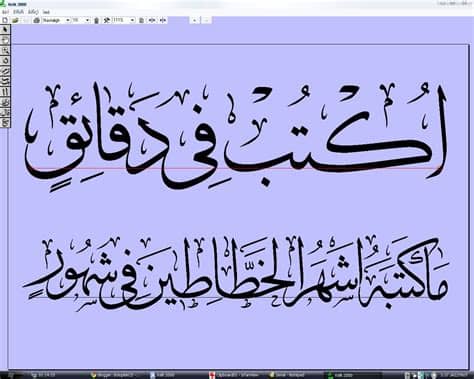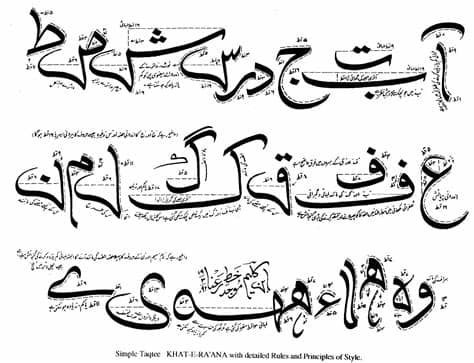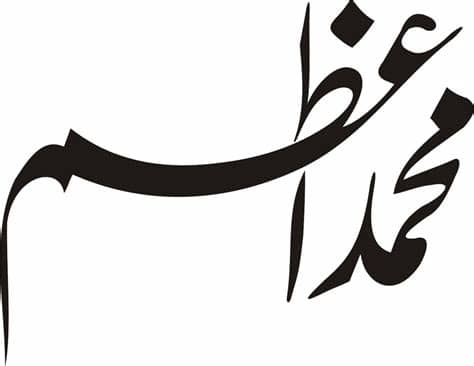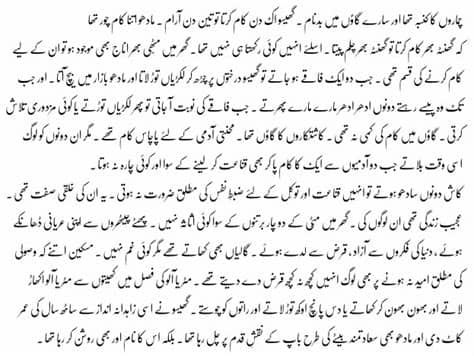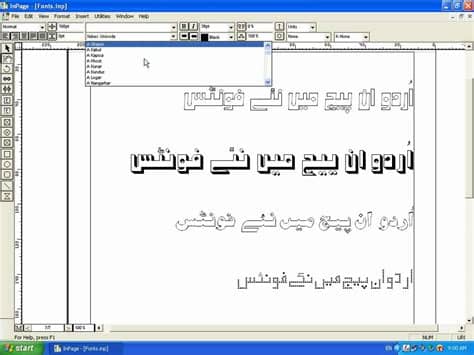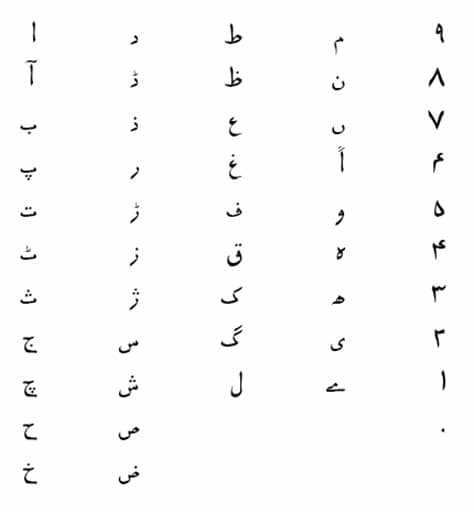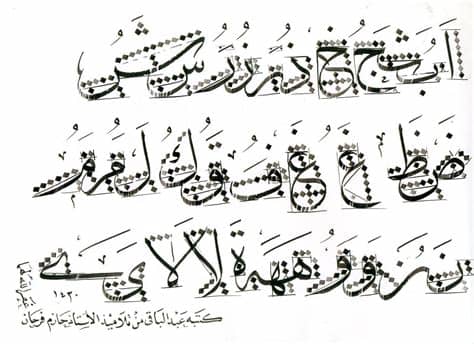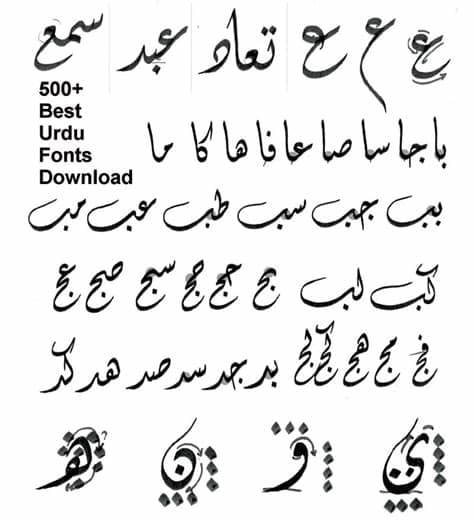
Licensed for personal and commercial use. Writing fonts include both printing and cursive styles and is less artistic than formal calligraphy. Basics of urdu handwriting with faountain pen. Contact urdu fonts free download on messenger. Craft a personalized note with one of these. Make your text decorative with beautiful handwriting hindi fonts. Browse by alphabetical listing, by style, by author or by popularity. Handwriting fonts are written with a pen, pencil, or marker. This handwriting font is available in two styles: Actually, the least thing you think of when you want to. Within that broad category you'll find a range of styles that reflects the variations. Download 10,000 fonts with one click for $19.95. #handwritten #cartoon #cursive #eroded #decorative #handwriting #elegant #halloween #logo #hand drawn #retro.
Craft a personalized note with one of these. Typographic info for the urdu typesetting font family. See more of urdu fonts free download on facebook. Ameliya script font is a hand calligraphy font, it's interesting because it has a soft, clean, feminine bridgeth is a handwritten script font, with an elegant and beautiful look. Archive of freely downloadable fonts. The best selection of handwriting fonts for windows and macintosh. Basics of urdu handwriting with faountain pen. #handwritten #cartoon #cursive #eroded #decorative #handwriting #elegant #halloween #logo #hand drawn #retro.
Get free urdu fonts like urdu naskh font preview.
Within that broad category you'll find a range of styles that reflects the variations. Handwriting fonts are written with a pen, pencil, or marker. It looks stunning on wedding. To make your system read and write urdu scripts in variety of fonts including naskh, nastaleeq and other fancy calligraphic flavors without much trouble. Get free urdu fonts like urdu naskh font preview. Licensed for personal and commercial use. Urdu handwriting and arabic khushkhati. Actually, the least thing you think of when you want to. You can use these fonts to create custom styles. We have 3,746 free handwritten\ fonts to offer for direct downloading · 1001 fonts is your favorite site for free fonts since 2001. Craft a personalized note with one of these. Browse by alphabetical listing, by style, by author or by popularity. Download 10,000 fonts with one click for $19.95.
Handwriting fonts bring a new artistry to fonts, as they are actually based on people's individual handwriting. Actually, the least thing you think of when you want to. Writing fonts include both printing and cursive styles and is less artistic than formal calligraphy. This handwriting font is available in two styles: Google fonts now supports variable fonts.
Here are 50 free handwriting fonts you can incorporate into your designs to give them a unique every one of the free handwriting fonts on this list is available for download at zero cost to you—so if. Ameliya script font is a hand calligraphy font, it's interesting because it has a soft, clean, feminine bridgeth is a handwritten script font, with an elegant and beautiful look. May i please request for urdu fonts in your collection such as 'jamil noori nastaliq' or others. The best selection of handwriting fonts for windows and macintosh. Download and install free handwritten fonts of the best quality from free fonts and use on your own personal and business related design purposes. Urdu handwriting and arabic khushkhati. Download 10,000 fonts with one click for $19.95. Total in section 693 of the fonts available to free this page lists the handwritten fonts, which you can download absolutely free of charge and without.
This handwriting font is available in two styles: Get free urdu fonts like urdu naskh font preview. You can use these fonts to create custom styles. Browse a unique collection of the best handwritten fonts and thousands of free typefaces to download. Typographic info for the urdu typesetting font family. Here are 50 free handwriting fonts you can incorporate into your designs to give them a unique every one of the free handwriting fonts on this list is available for download at zero cost to you—so if. See more of urdu fonts free download on facebook. It looks stunning on wedding. Handwriting fonts are written with a pen, pencil, or marker. Handwriting fonts bring a new artistry to fonts, as they are actually based on people's individual handwriting. @zeni241 thanks for you suggestion. We have 3,746 free handwritten\ fonts to offer for direct downloading · 1001 fonts is your favorite site for free fonts since 2001. Google fonts now supports variable fonts.